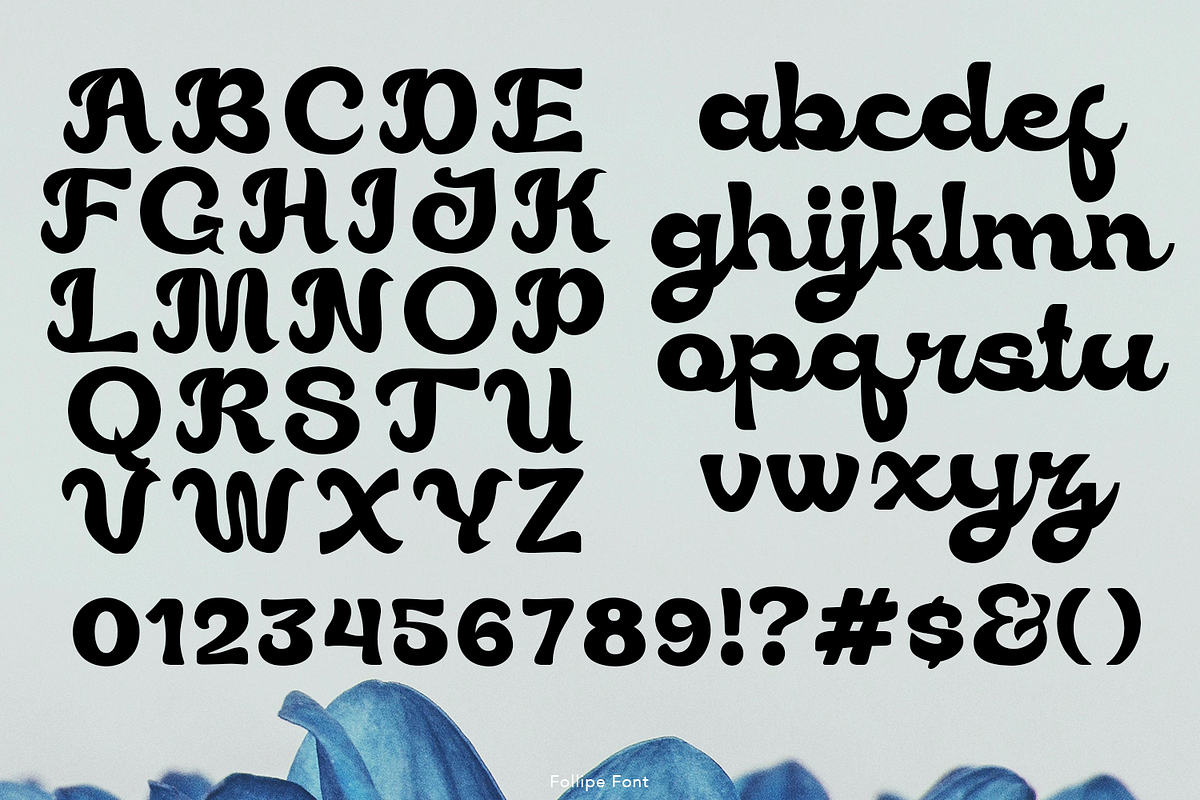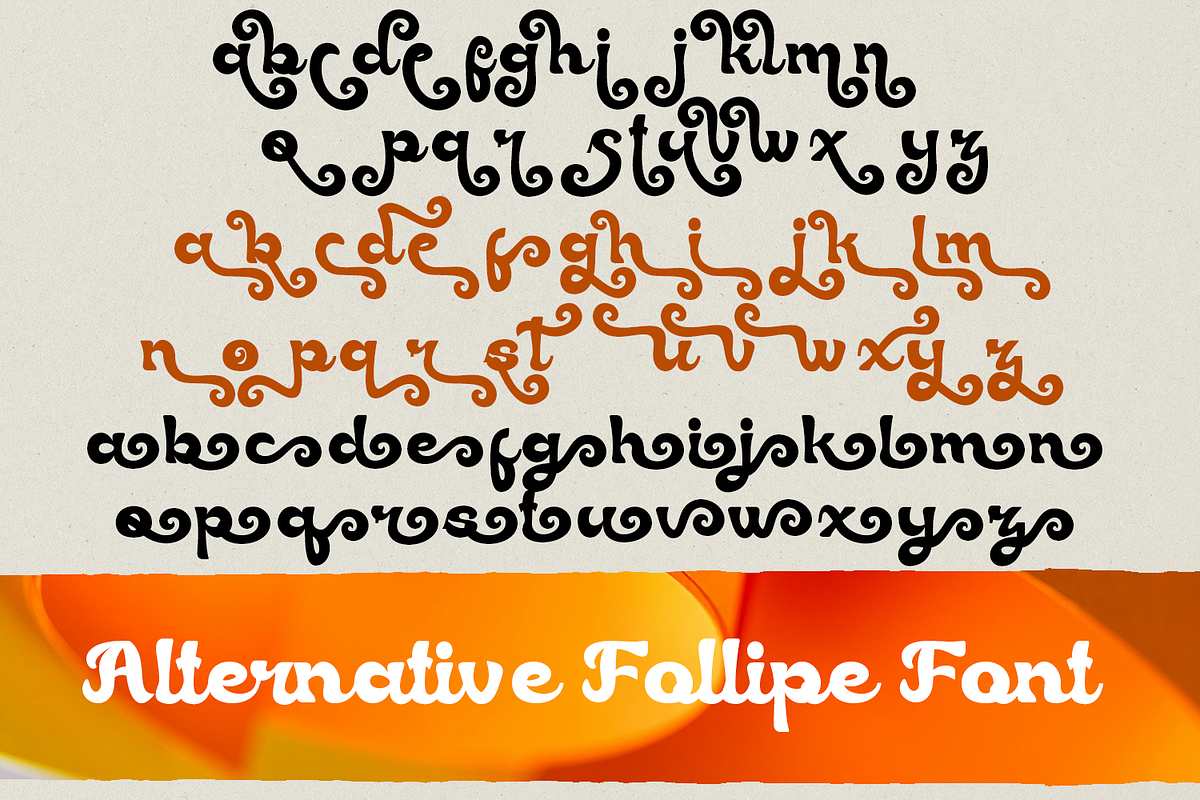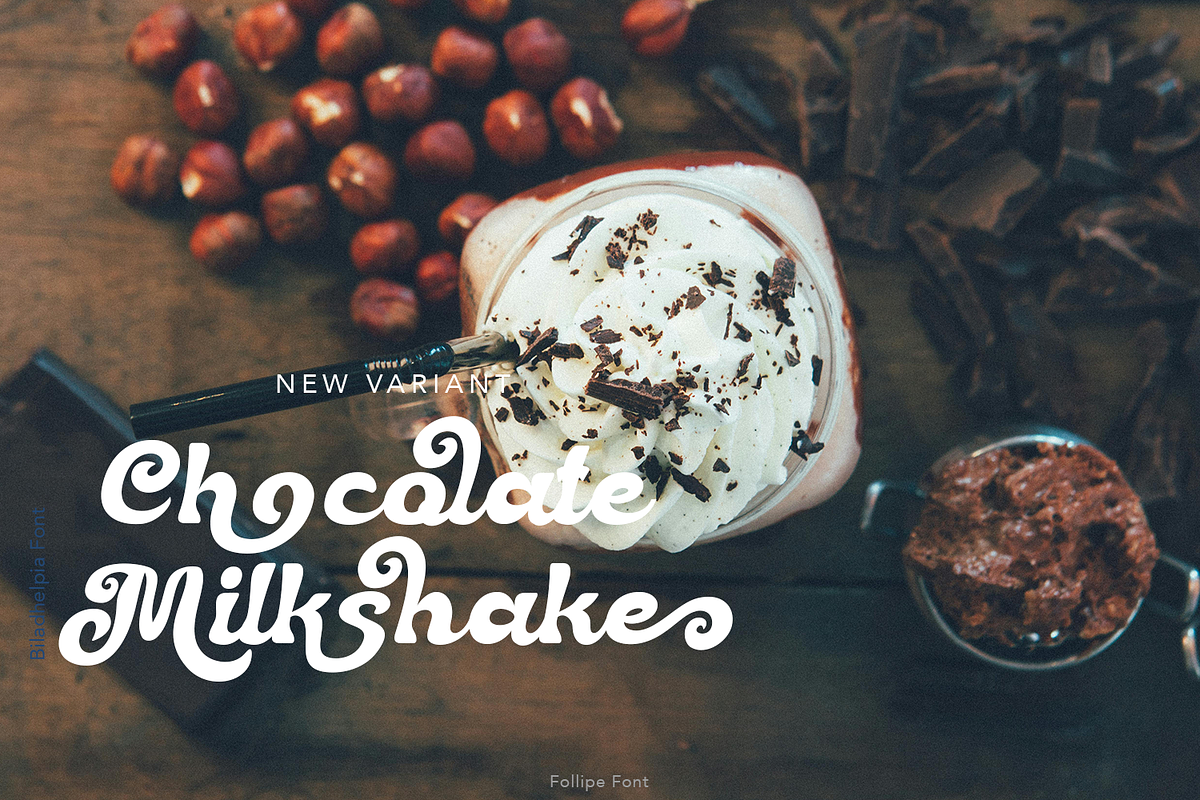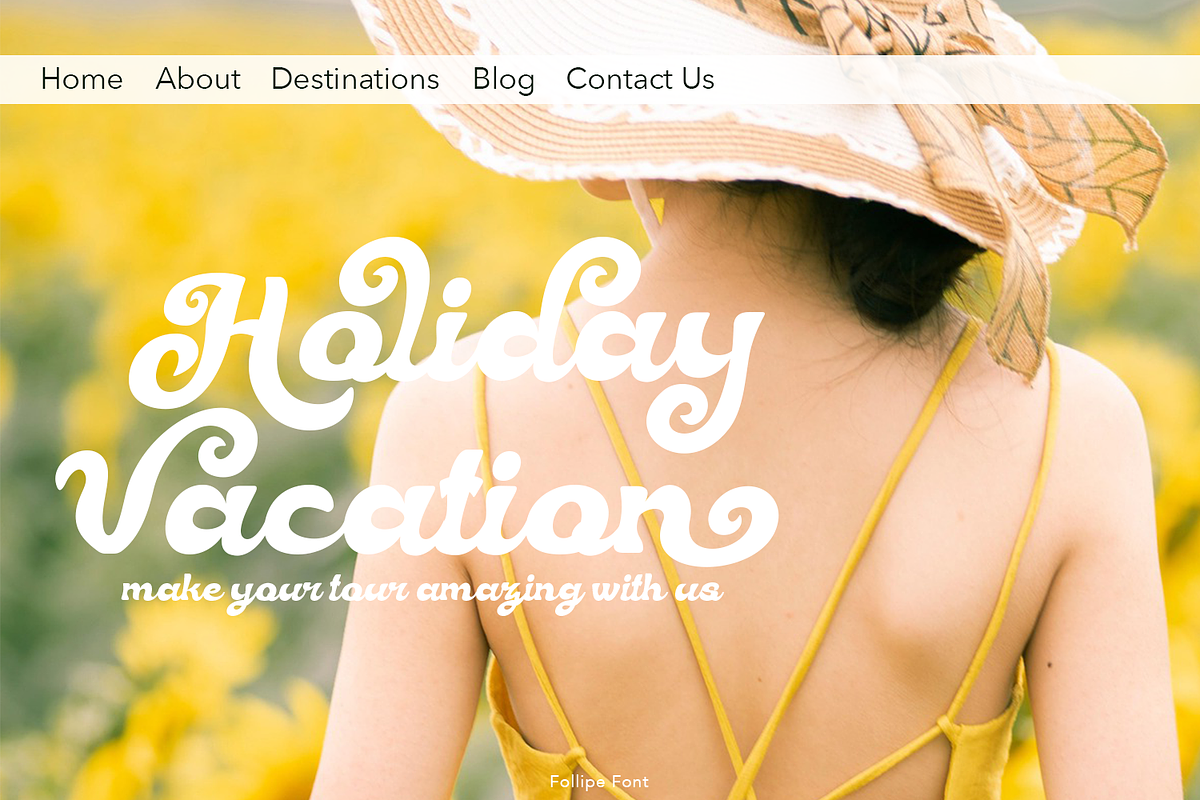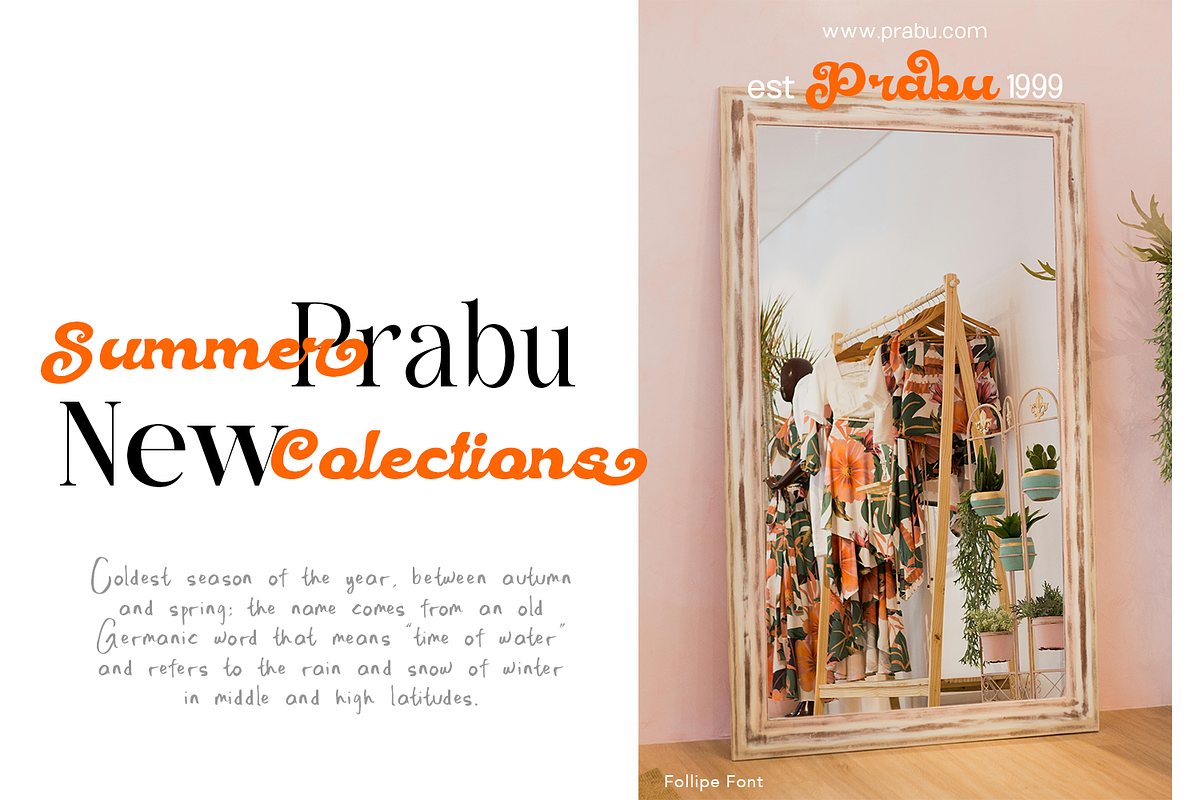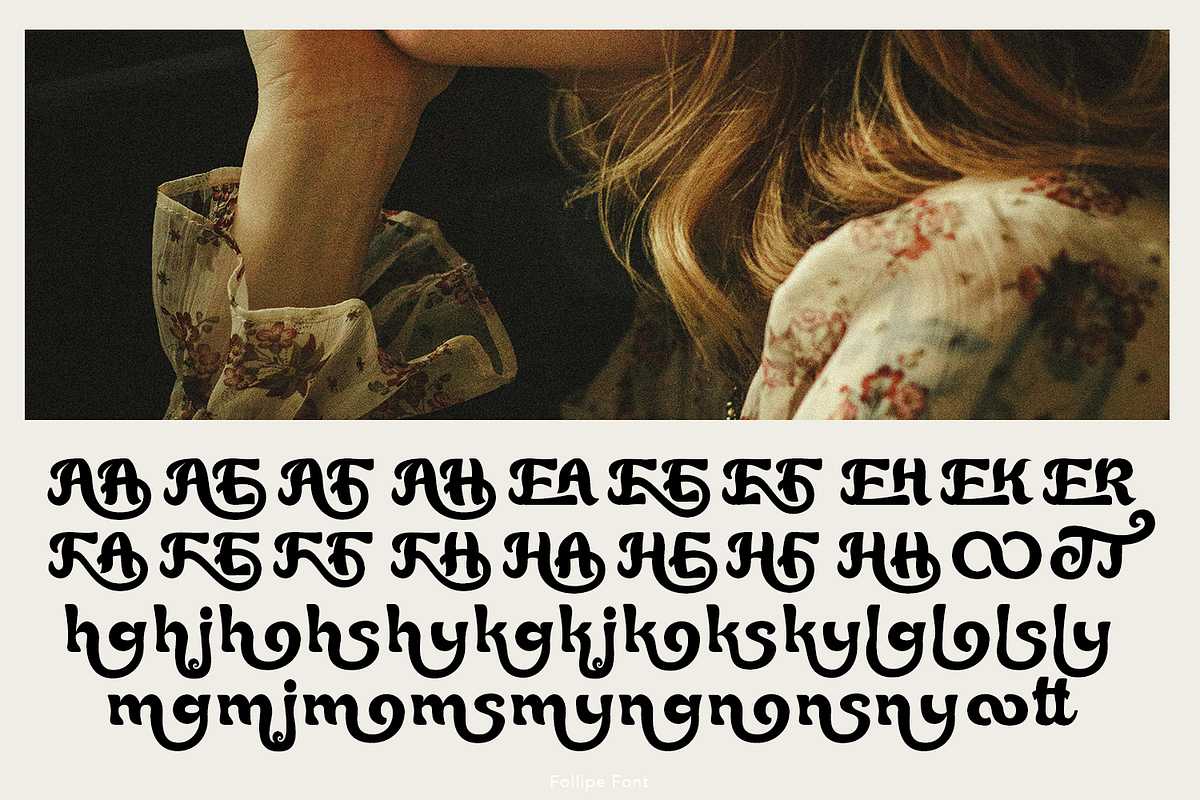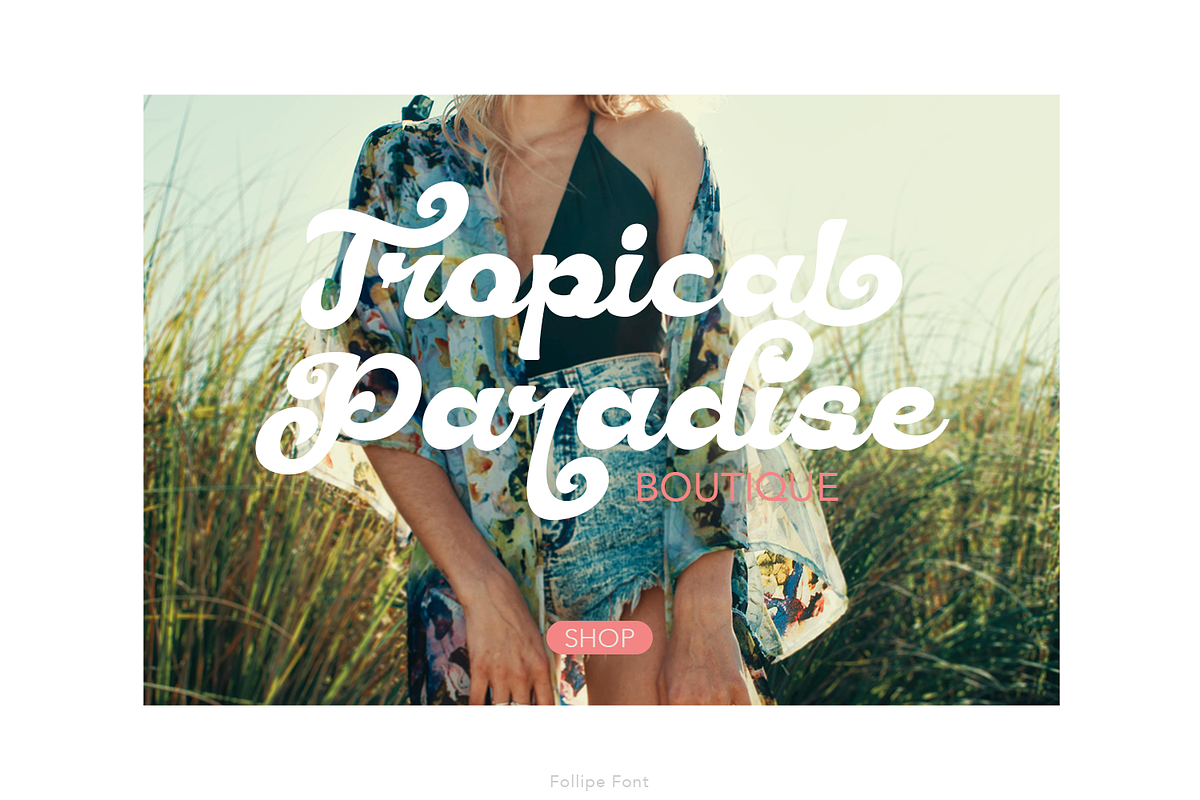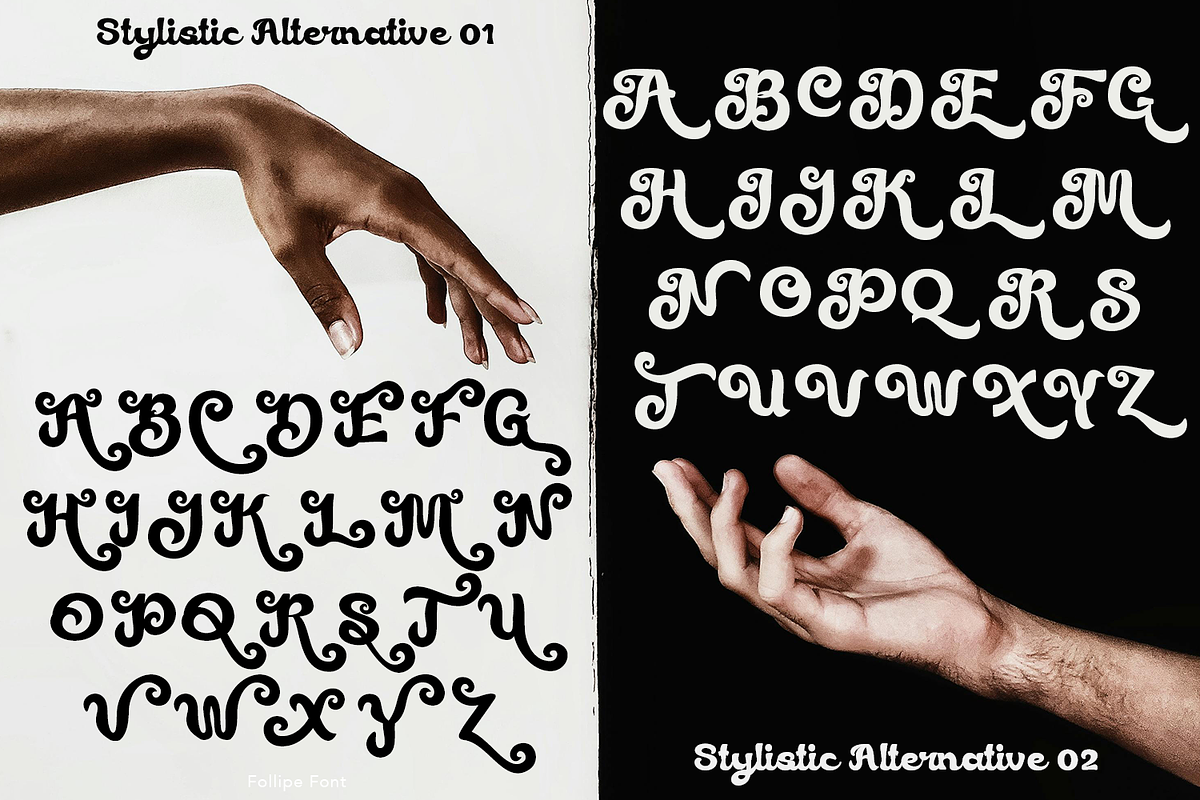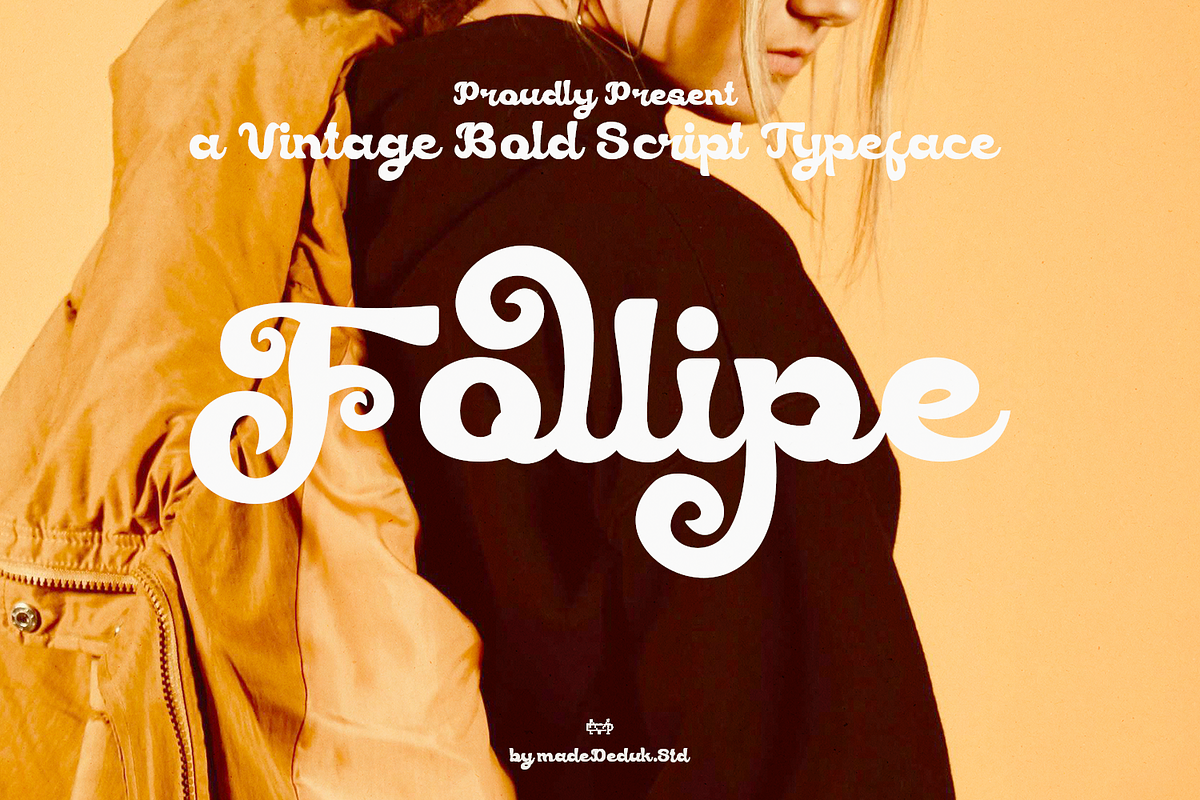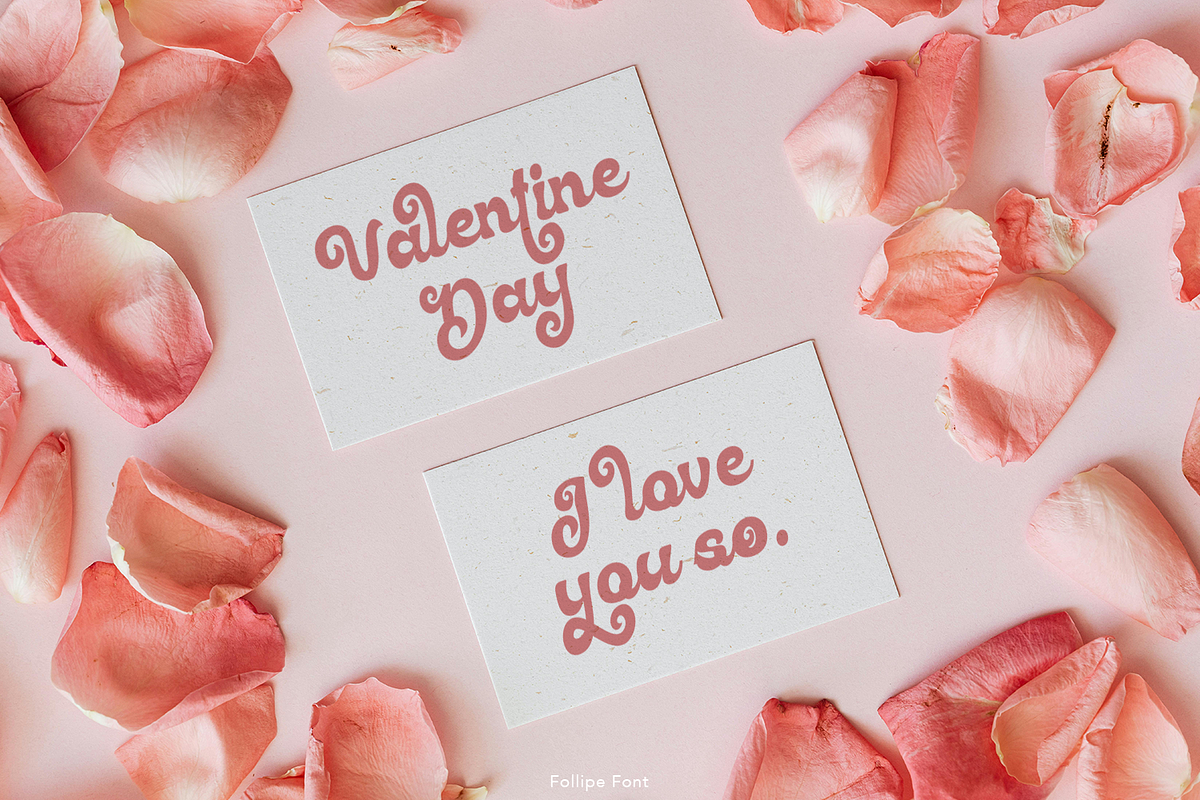
Follipe Bold Script
Follipe is a groovy font 80's script with curly style comes with a lot alternative and ligature. Groovy and refined you can explore and combine creating rhythm for comfortable reading. This font perfect for any projects, such logotype, stickers, greeting / wedding cards, packaging design, headlines, brand identity, posters, magazines, books, Instagram, websites, and many more.